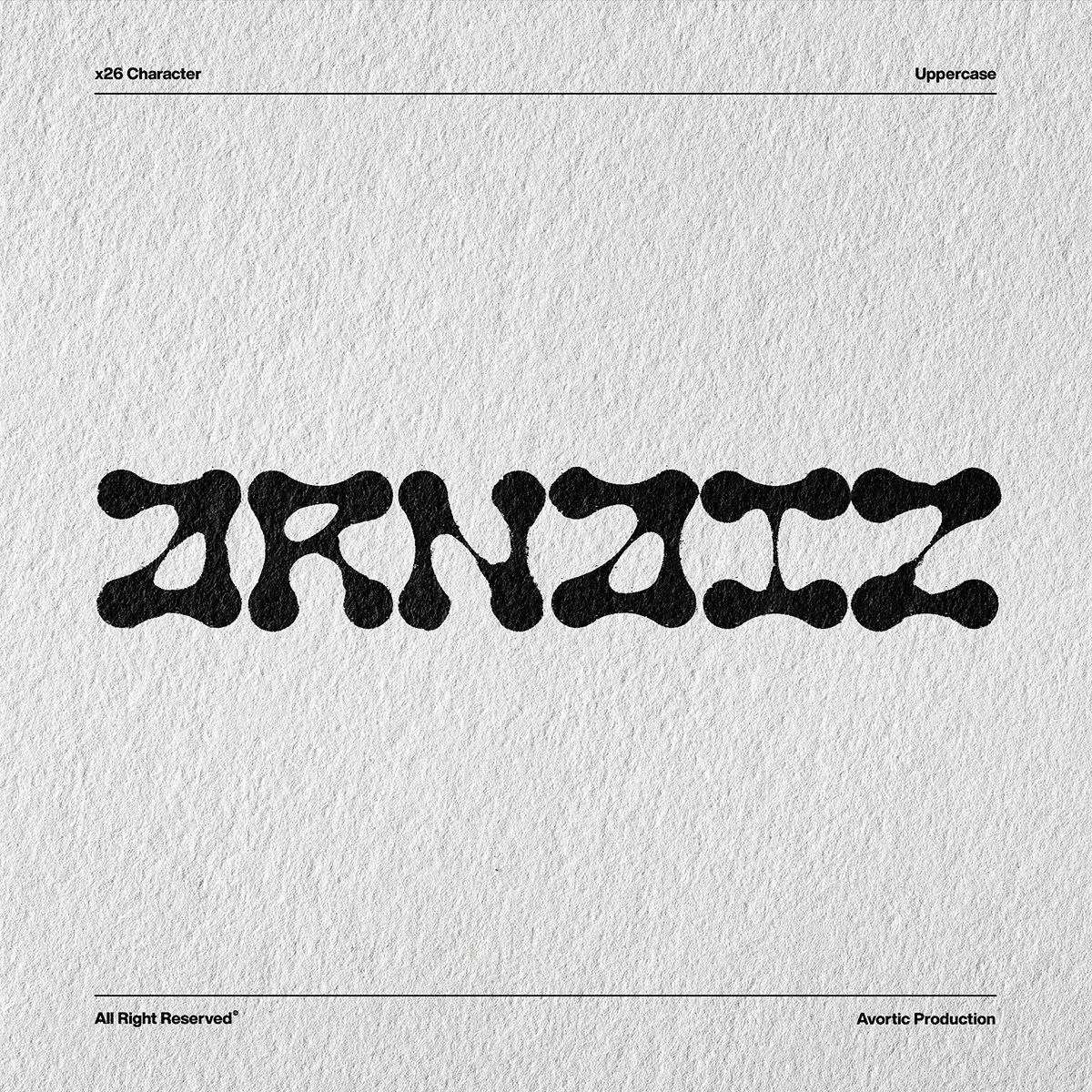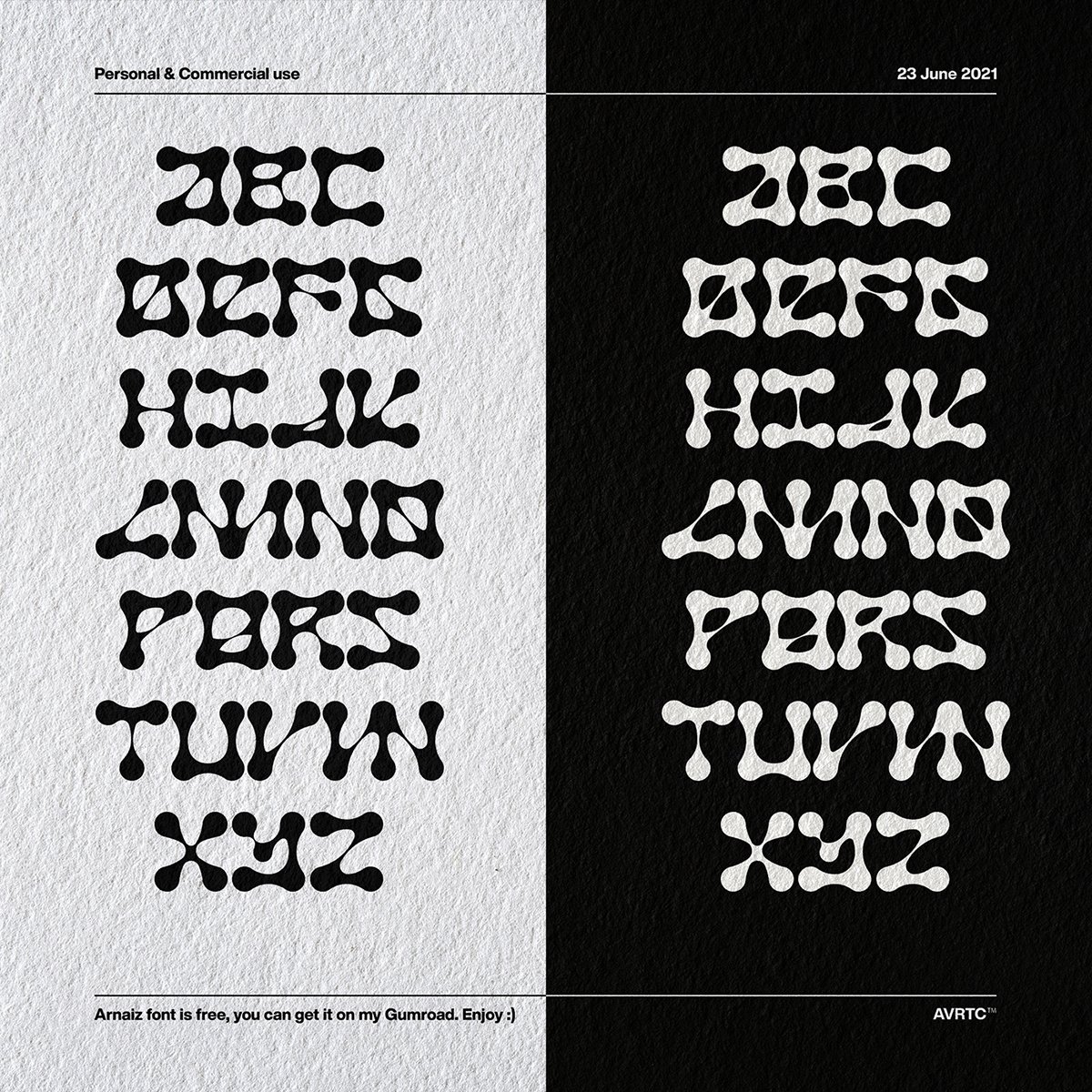
Arnaiz Free Display Font is the latest font by Official Avortic. The font appear unique with its round shape all over the characters. Hence, it will add dynamic and style to any design it touches. As you can see, Arnaiz will work best for apparel design, poster, logo, and branding. Also, the font is free for both personal and commercial project!